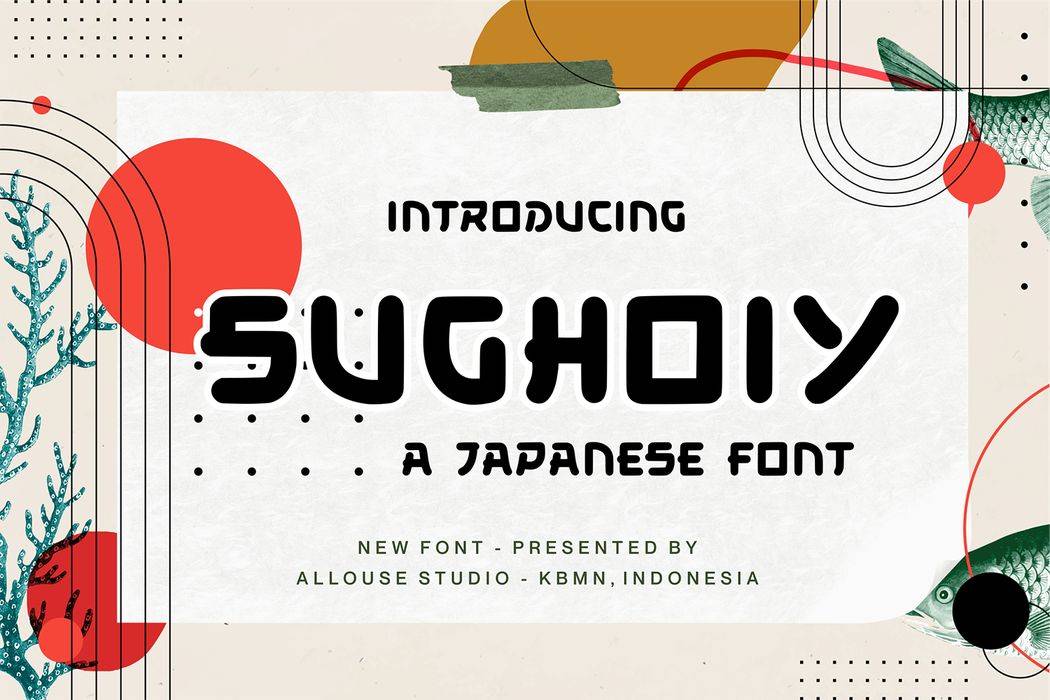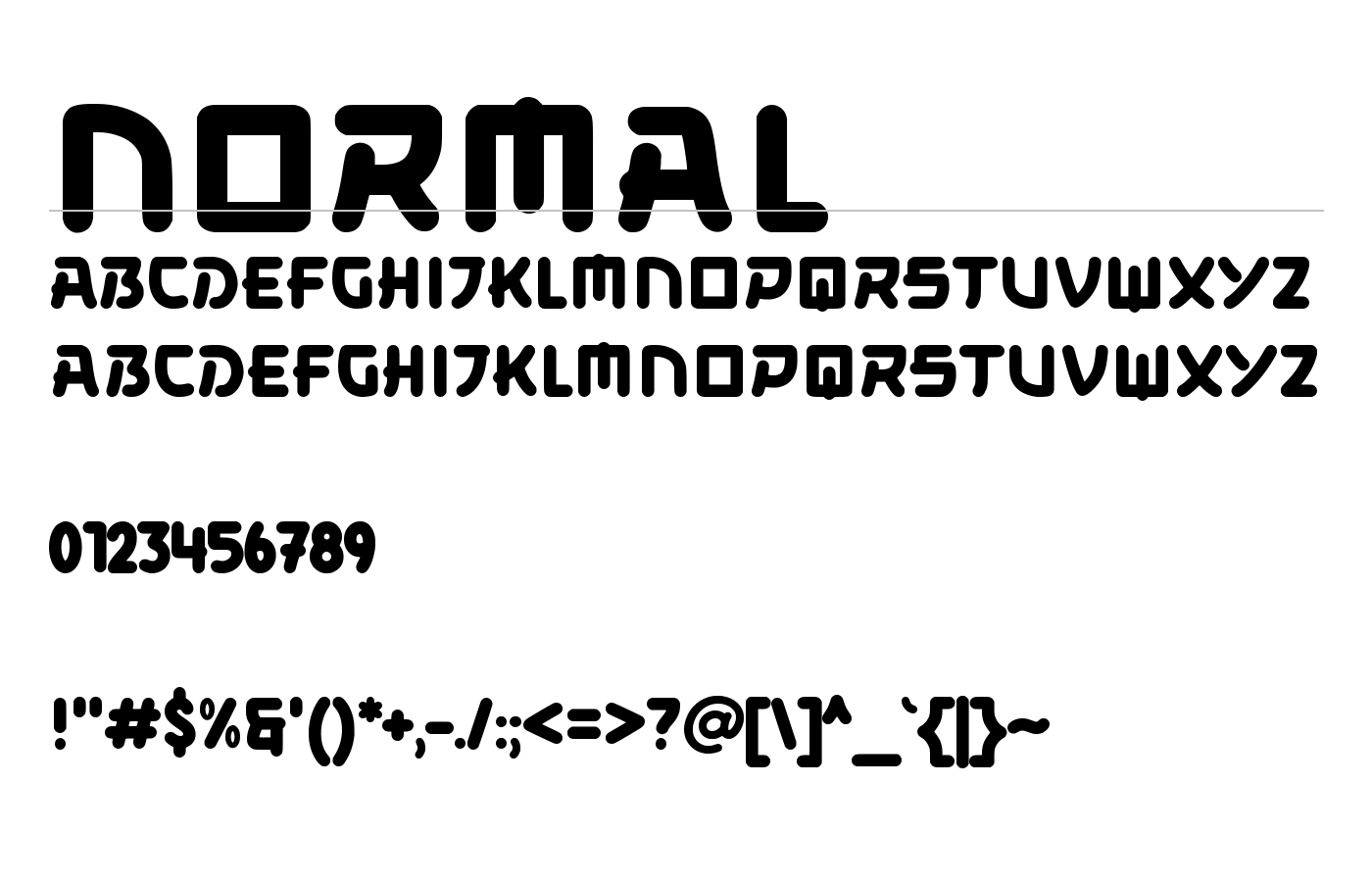
Sughoiy is a bold, rounded sans serif font with a playful and modern vibe. Its thick strokes and smooth, curved corners give it a friendly and approachable feel, making it great for branding, headlines, and creative projects that want to convey fun and uniqueness. This font works well where a strong, eye-catching presence is needed without losing readability.
Sughoiy Font